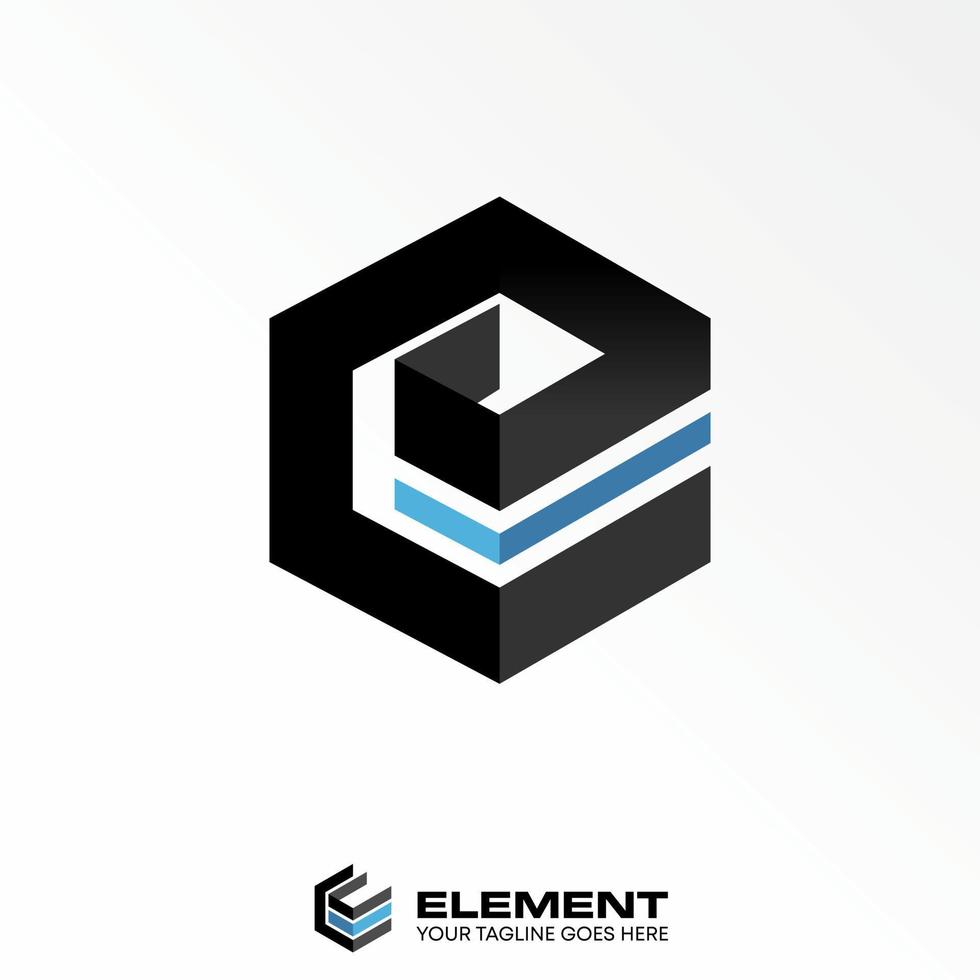
Letter or word GE, CEE, CCE font in square and hexagon image graphic icon logo design abstract concept vector stock. Can be used as a symbol associated with initial or monogram Pro Vector